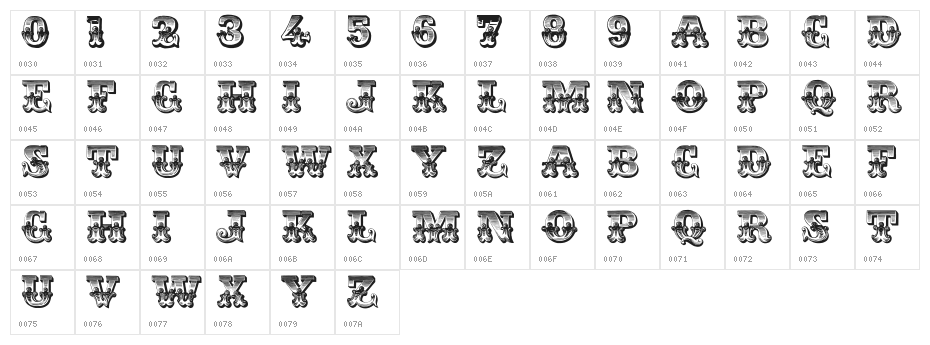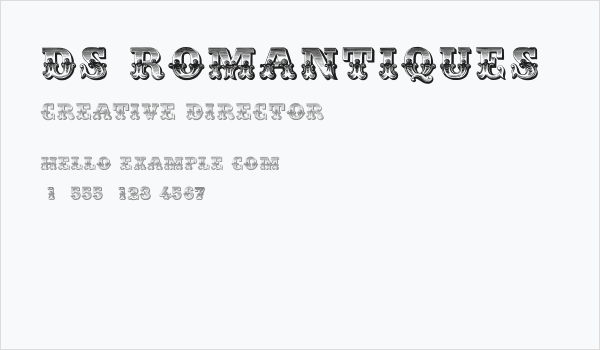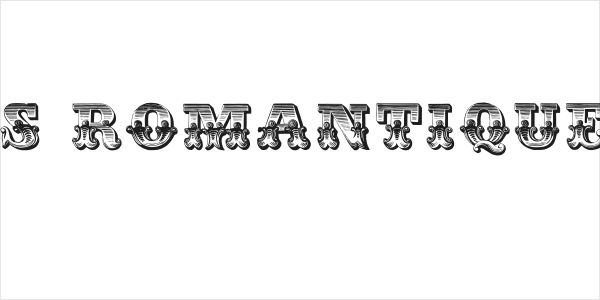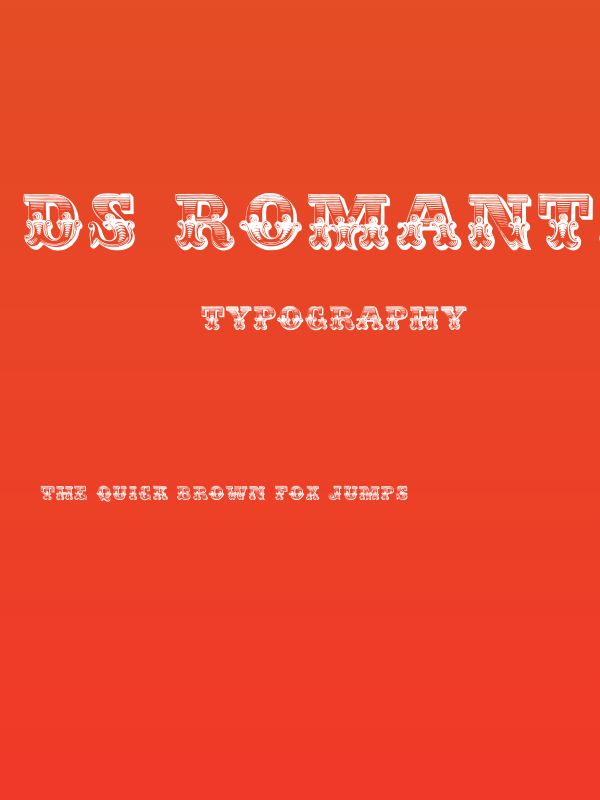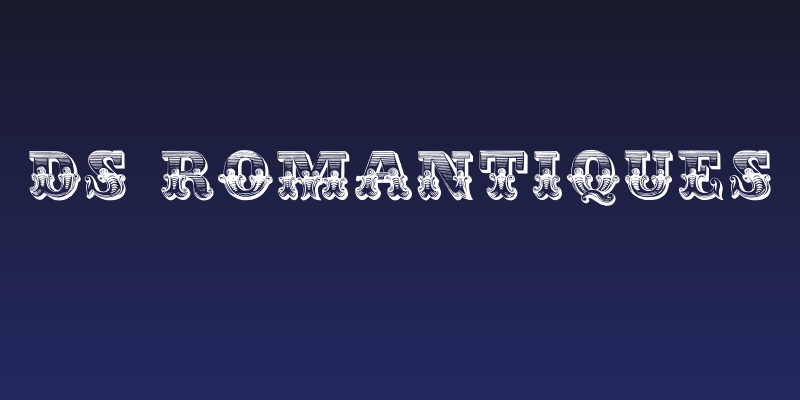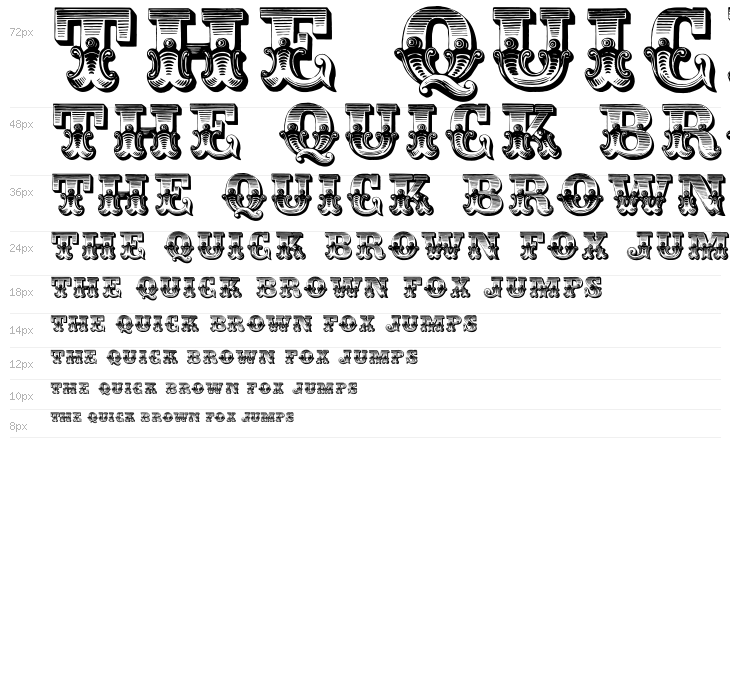
DS Romantiques Font
DS Romantiques Description
This font features an ornate and decorative style with intricate detailing and flourishes. Each character is embellished with elaborate patterns, giving it a luxurious and vintage feel. The bold strokes and high contrast between thick and thin lines enhance its dramatic appearance. The font's design is reminiscent of classic Victorian or Baroque aesthetics, making it ideal for projects that require a touch of elegance and sophistication. Its unique and artistic flair makes it stand out, suitable for creating eye-catching headlines or logos.
| Proposed Projects | Ideal for wedding invitations, luxury branding, vintage-themed posters, and decorative signage. |